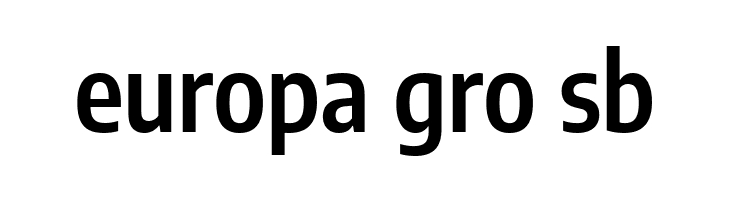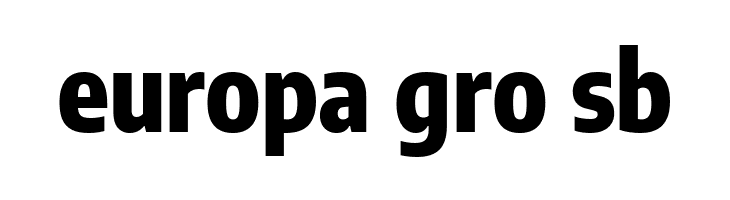
A geometric, angular font with a modern and futuristic style.
A geometric, angular font with a modern and technical aesthetic.
A geometric, angular font with a modern, digital aesthetic.
A bold, geometric font with unique cutouts and a modern aesthetic.
A bold, geometric font with unique cutouts and rounded edges.
A bold, ornate Blackletter font with a Gothic, medieval style.
A traditional blackletter font with intricate detailing and historical elegance.
A traditional blackletter font with ornate, dramatic letterforms.
A bold and ornate blackletter font with intricate details and a historical aesthetic.
A bold and intricate Blackletter font with high contrast and ornate details.
A traditional blackletter font with intricate, ornate letterforms.
A traditional blackletter font with ornate, medieval-inspired letterforms.
A bold serif font with strong vertical strokes and subtle curves, offering a classic yet modern appeal.
A bold, italic serif font with classic elegance and modern flair.
Elegant serif font with an italic slant and moderate contrast.
A classic serif font with elegant strokes and balanced structure.
A refined serif font with medium weight and elegant proportions.
A modern serif font with elegant lines and moderate contrast.
A playful, hand-drawn font with rounded edges and a whimsical style.
A modern, rounded sans-serif font with a friendly and approachable style.
A modern, geometric font with rounded edges and a clean, futuristic look.
A modern, geometric font with rounded edges and a clean, streamlined look.
An elegant serif font with flowing lines and a classic aesthetic.
A playful, modern font with clean, geometric lines and a whimsical touch.
A playful, handwritten font with a whimsical and casual style.
A playful, handwritten font with a whimsical and informal style.
A modern, clean sans-serif font with uniform stroke width and excellent legibility.
A modern sans-serif font with clean, geometric letterforms.
A bold, robust serif font with strong strokes and elegant curves.
An elegant serif font with an italic slant and moderate contrast, perfect for classic and sophisticated designs.
A classic serif font with medium contrast and elegant proportions.
A bold, serif typeface with strong strokes and classic serifs.